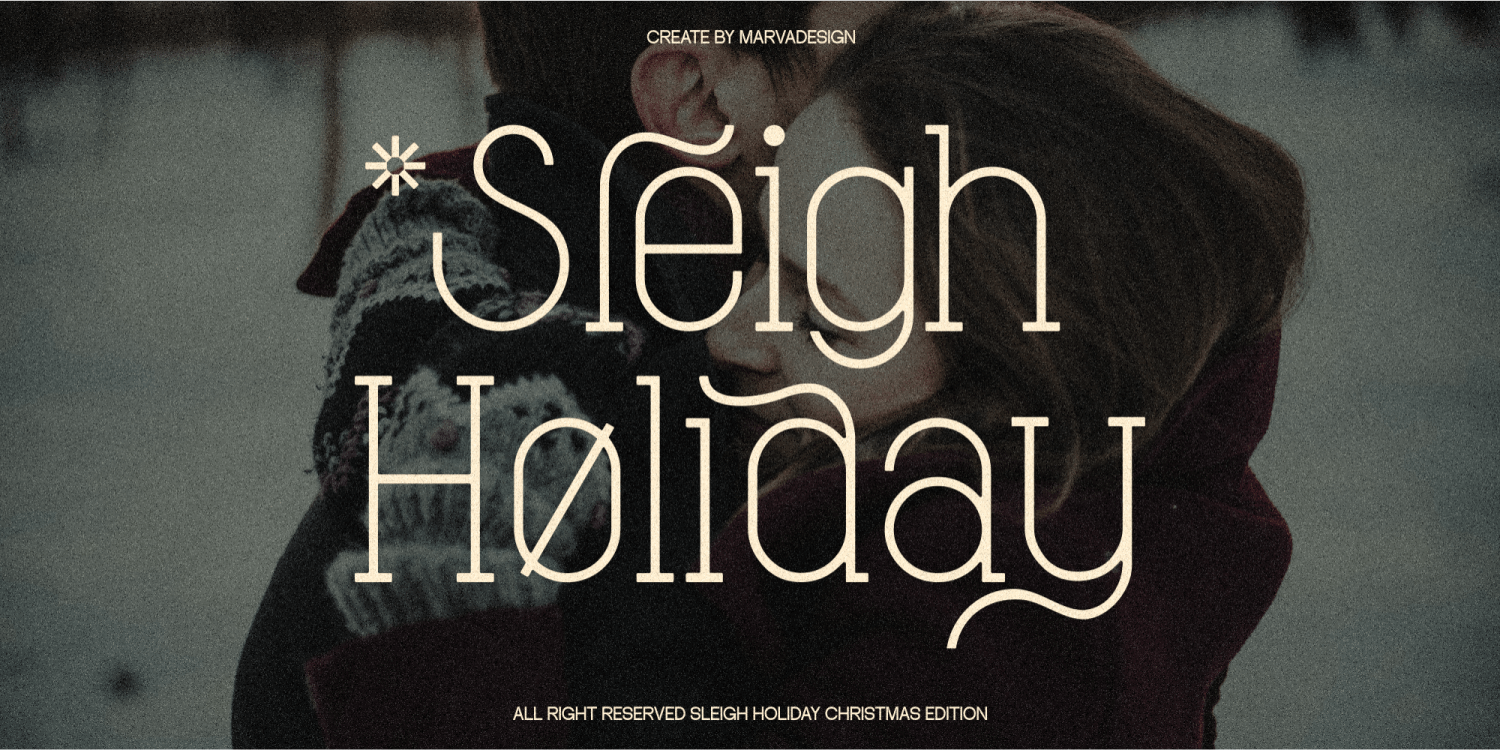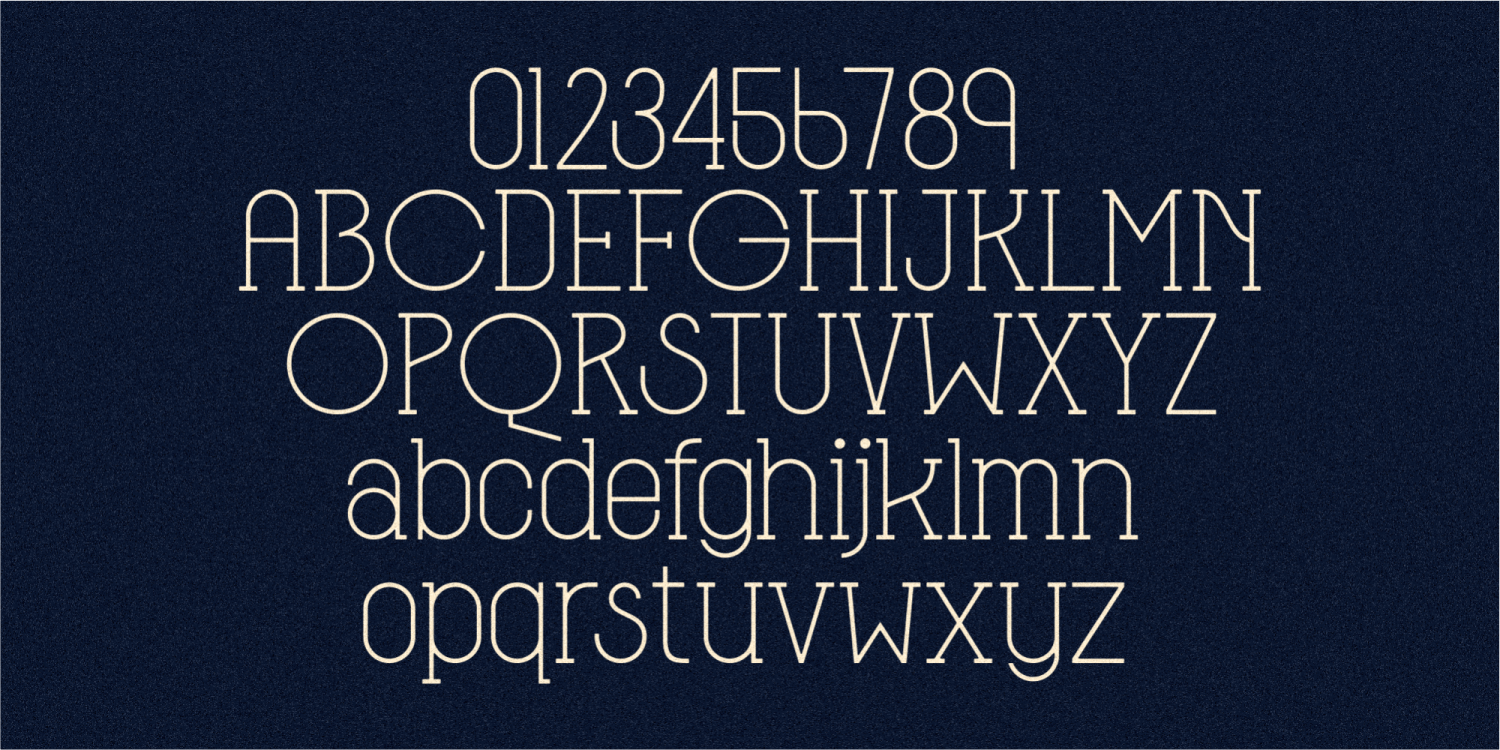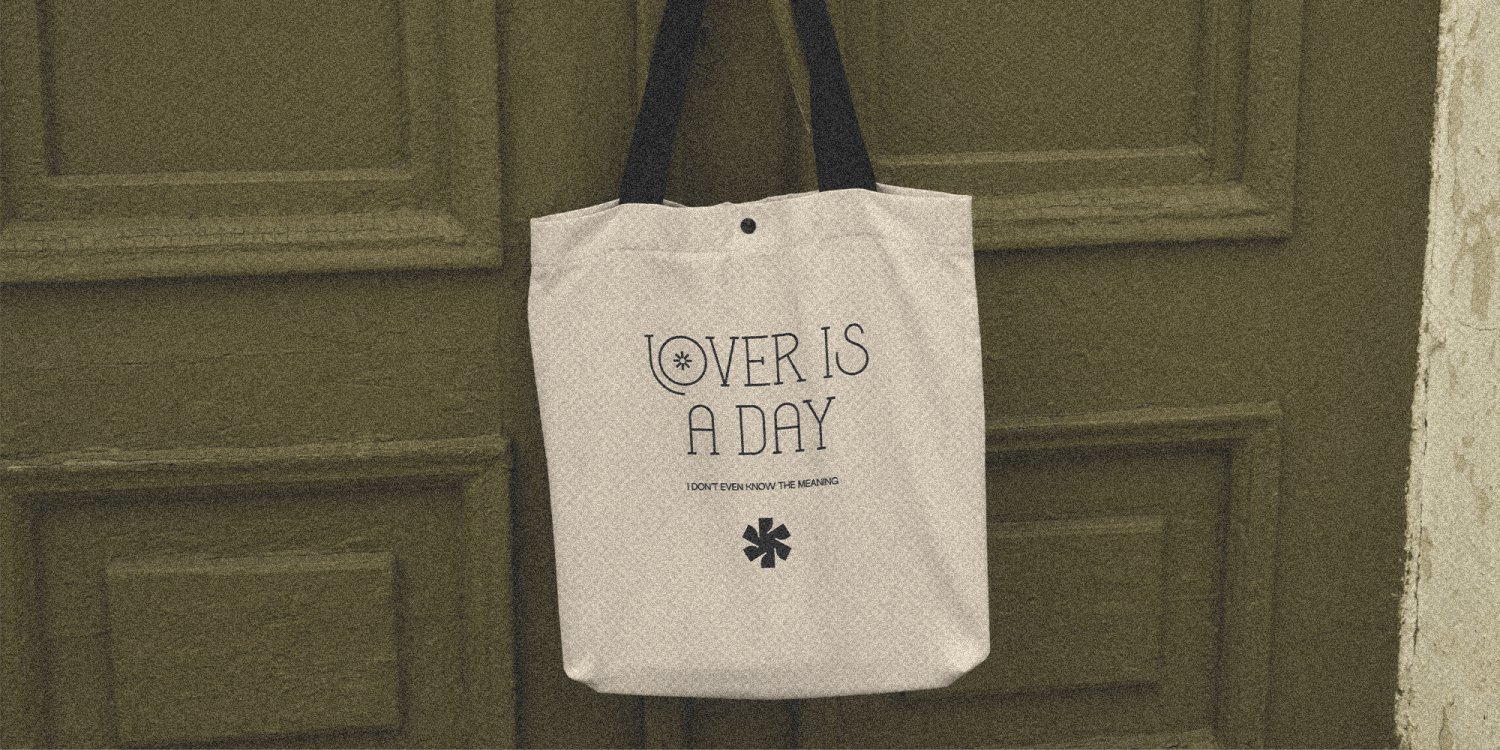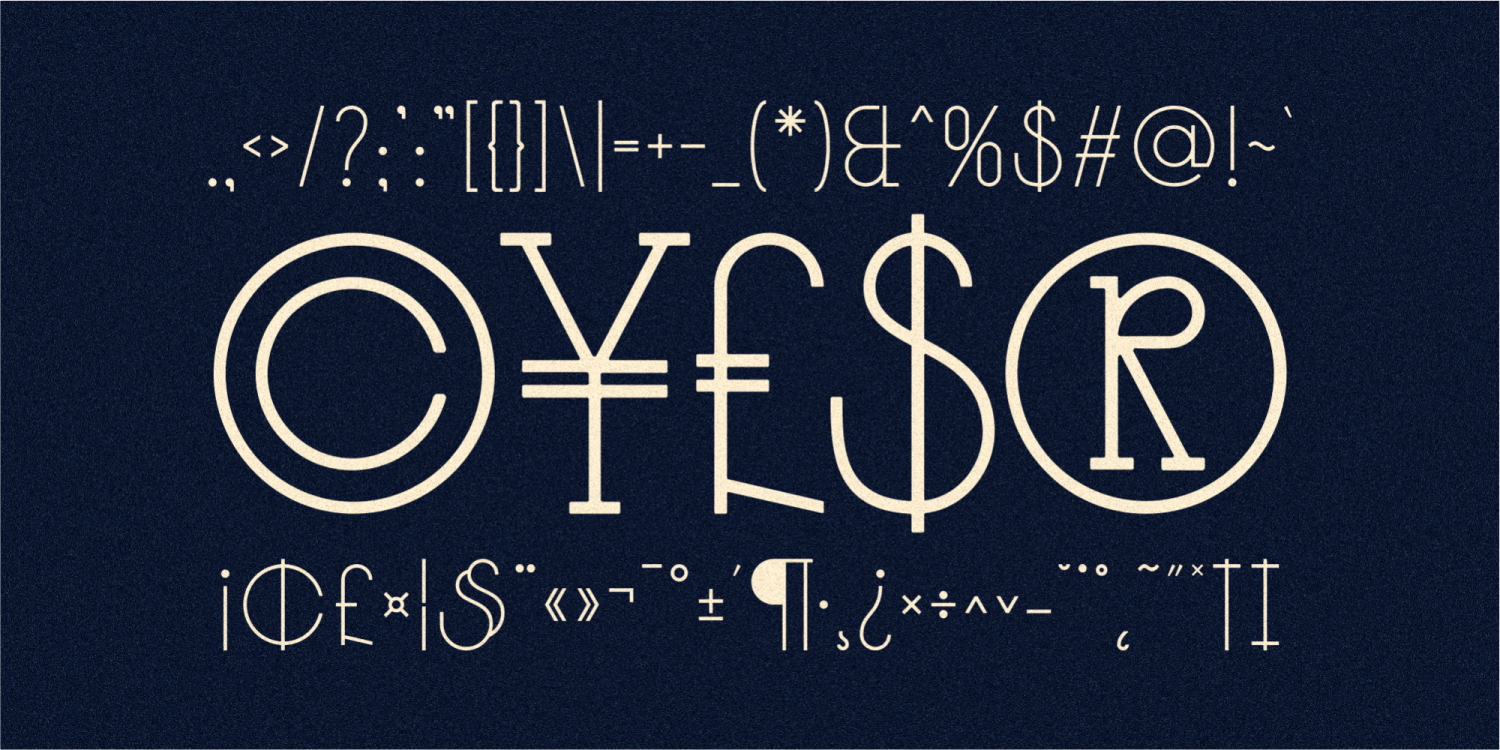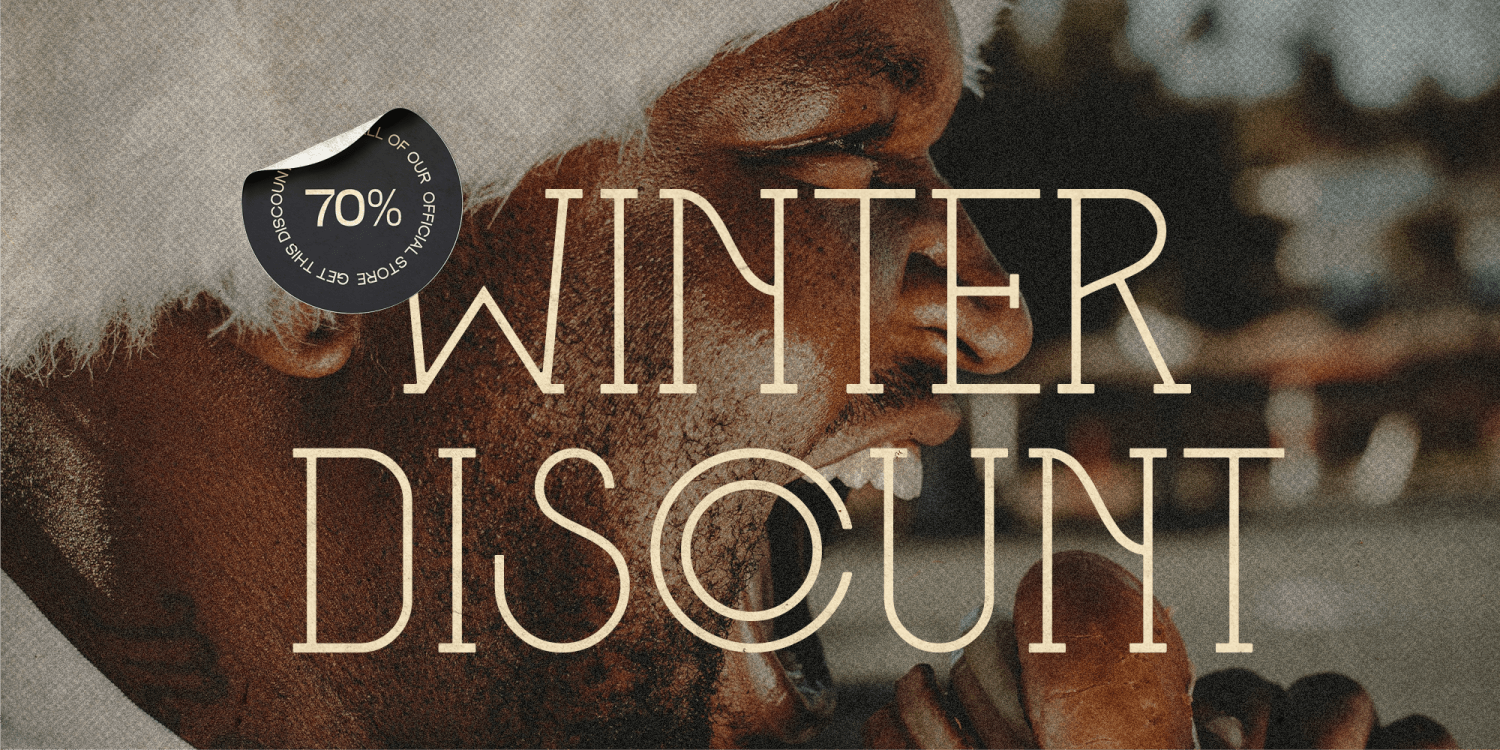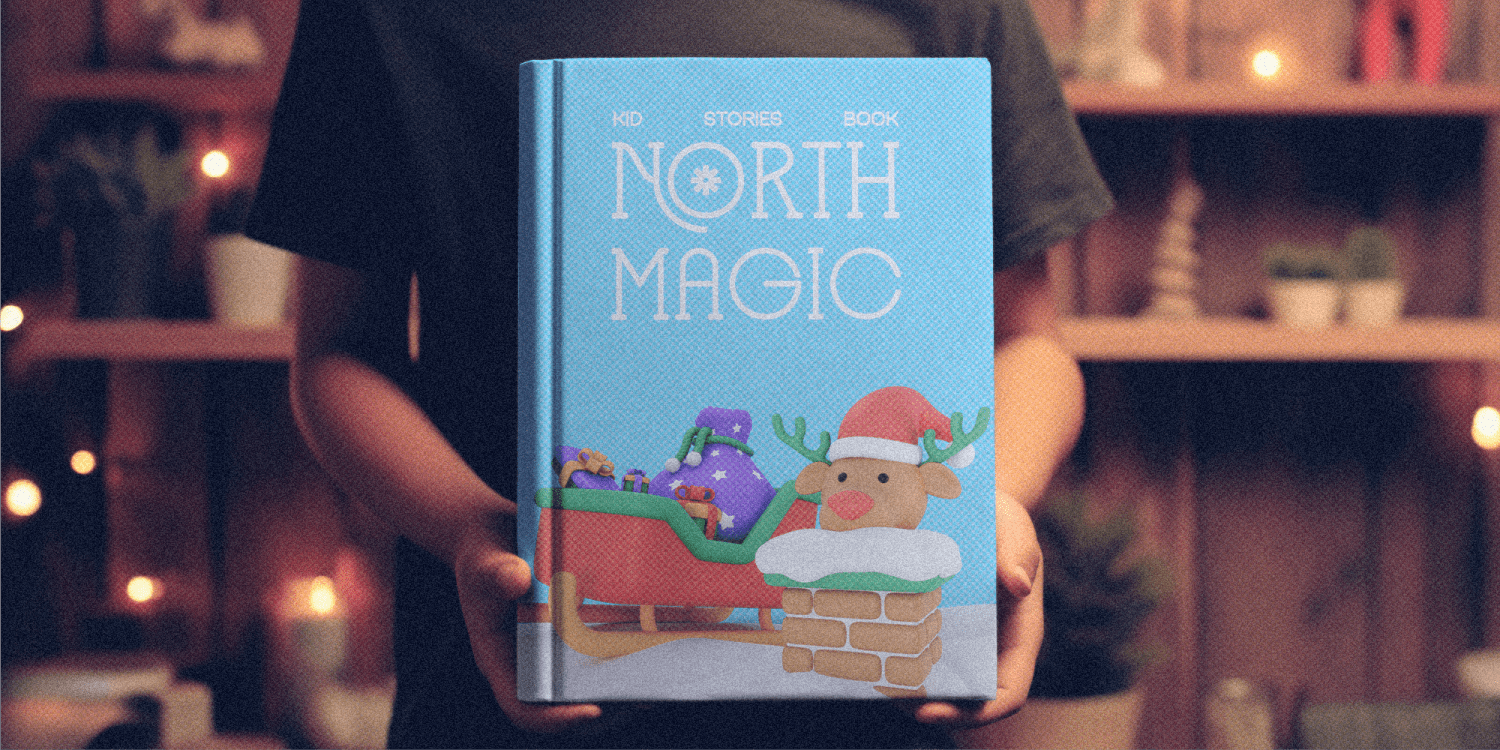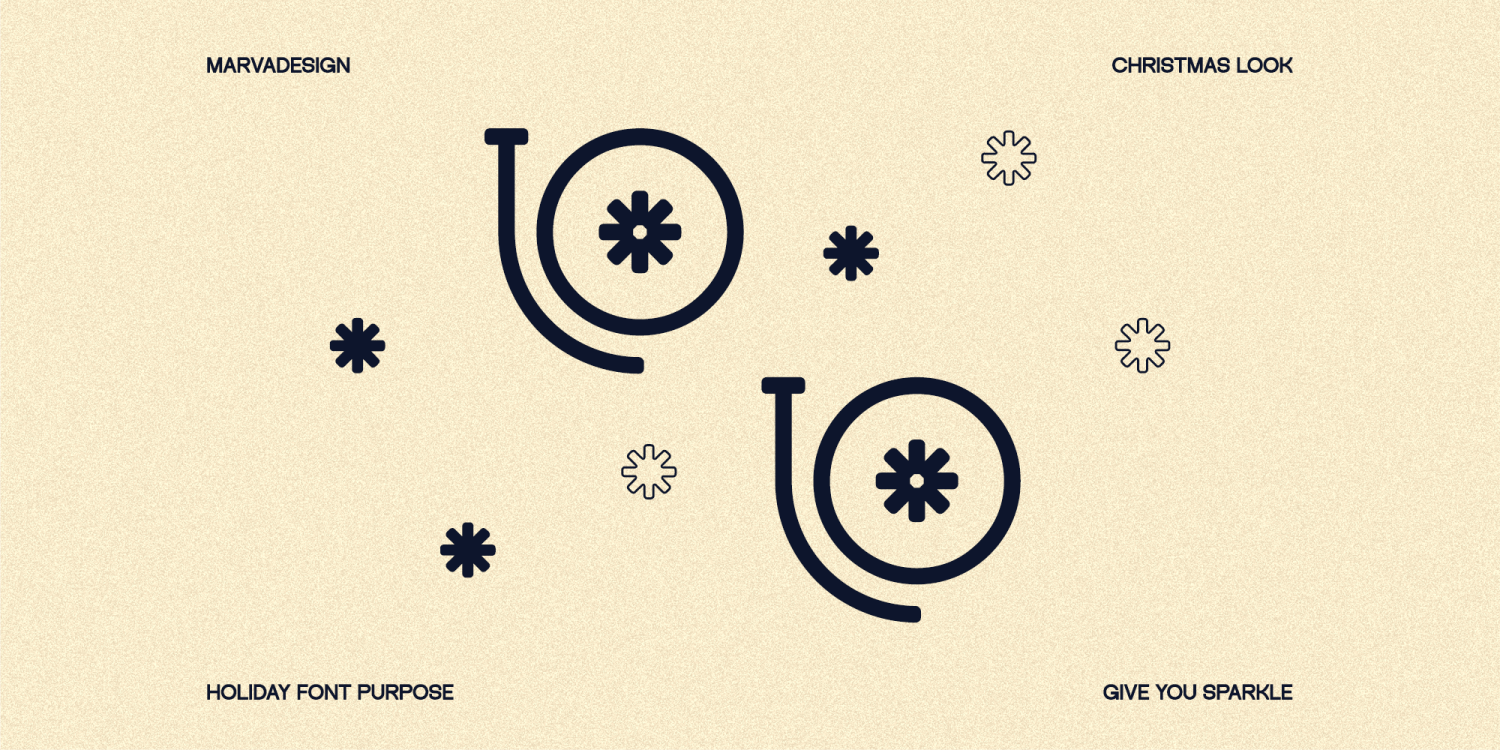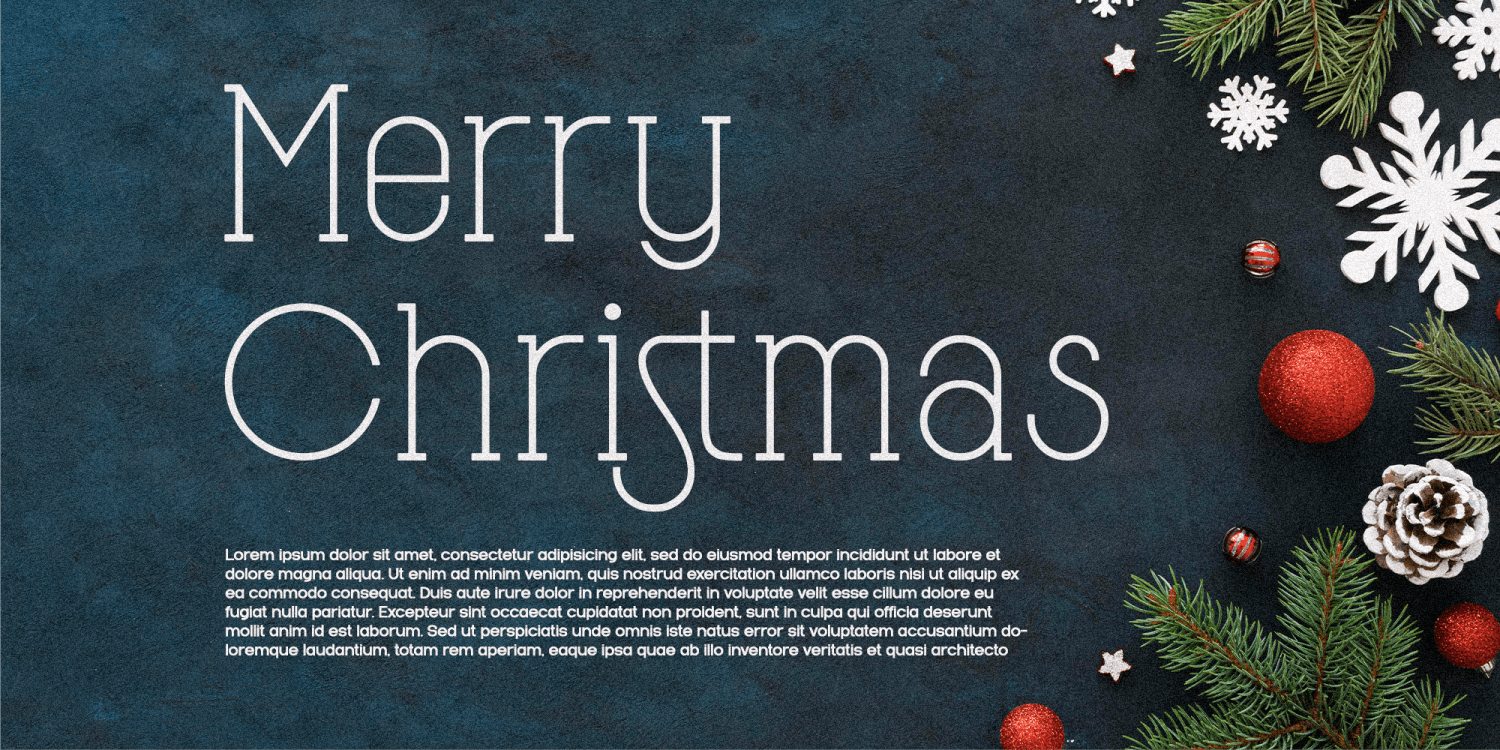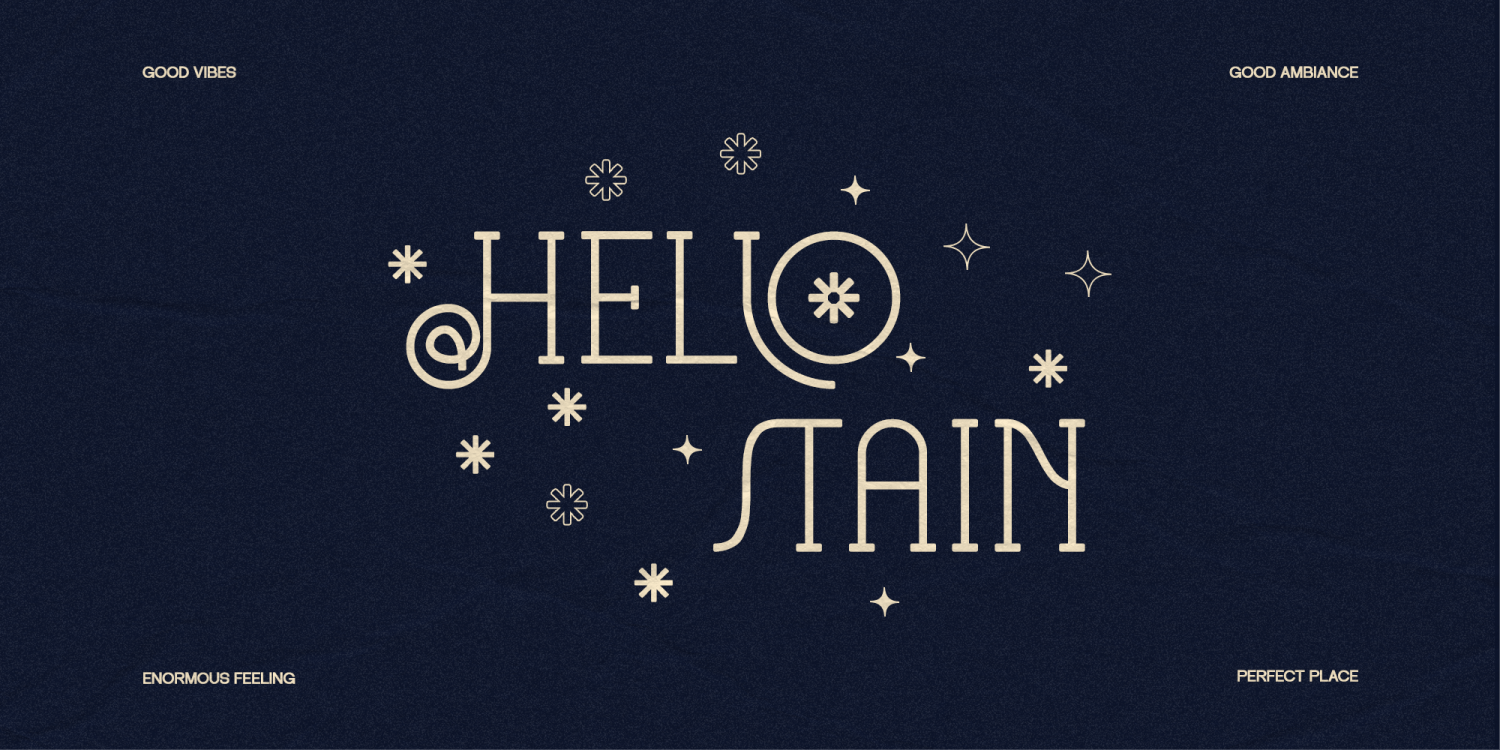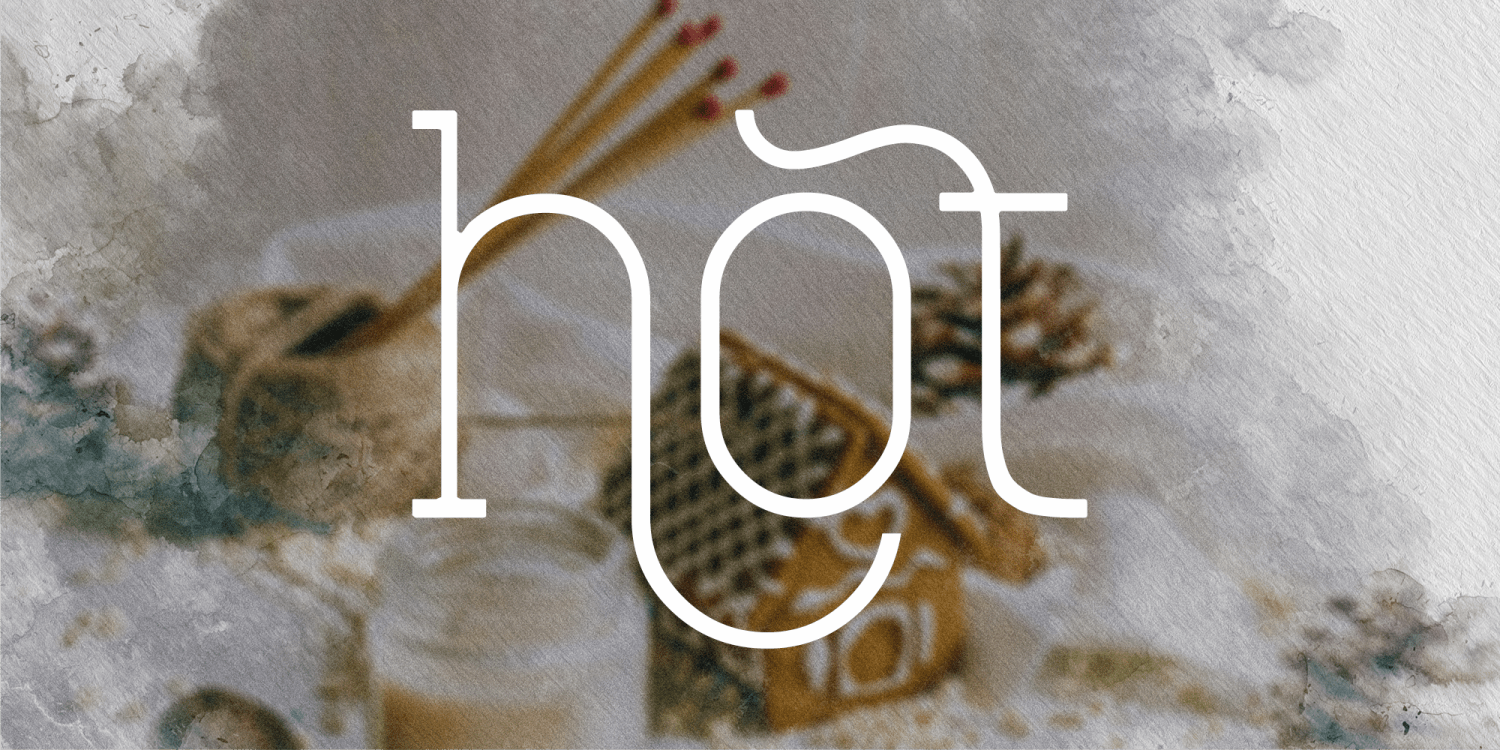
Sleigh Holiday
Font Family by Marvadesign
Introducing Sleigh Holiday is an elegant serif font with a minimalist design, perfect for creating a festive yet sophisticated atmosphere. This font is tailored for Christmas and holiday-themed events, as its style embodies warmth and celebration. With slightly rounded edges at its terminals, it carries a subtle touch of vintage charm, evoking a sense of nostalgia while remaining modern and refined. Sleigh Holiday is ideal for holiday cards, seasonal branding, event invitations, and any project that calls for a classic yet contemporary holiday feel.